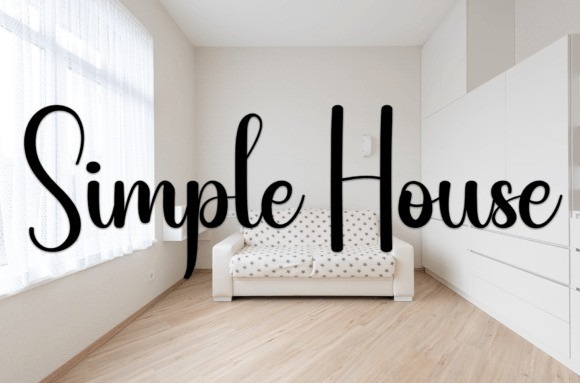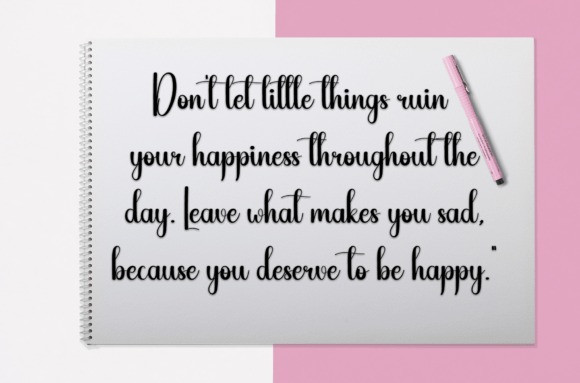
Milk Font
Milk Font, is a sweet and friendly handwritten font. Creative and cute, this font is ideal for writing wedding invitations, cards, or any other design that might need a fun touch!